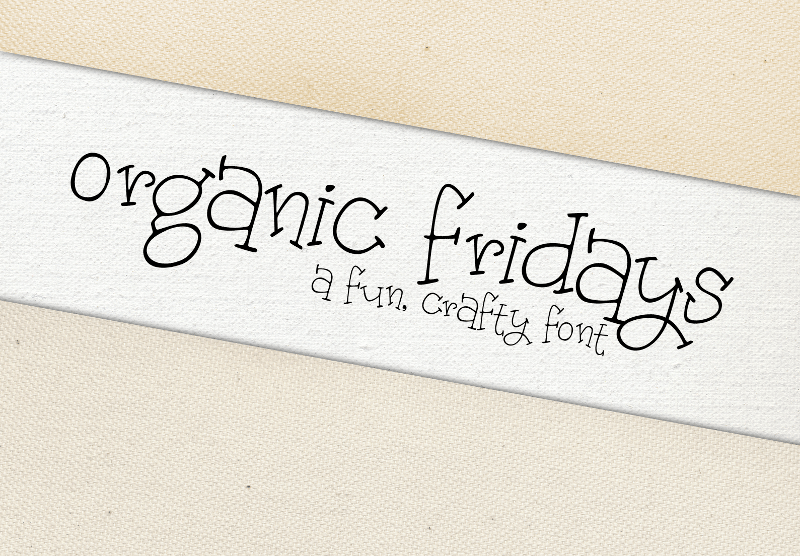
| Font name: | Organic Fridays |
| Author: | Brittney Murphy Design |
A fun, hand-drawn font perfect for crafts and cards! Free for personal and non-profit use. For commercial use please donate $5. Thanks! |